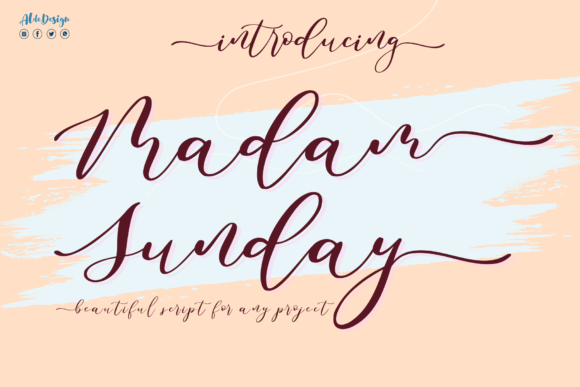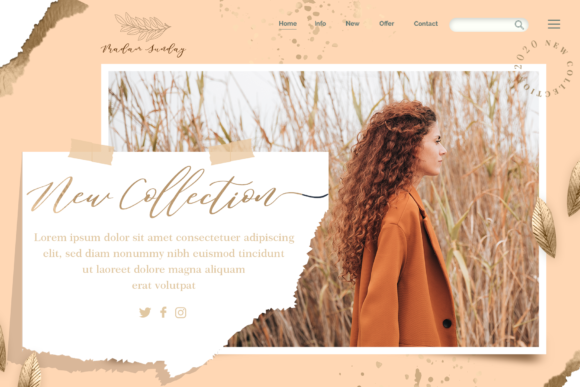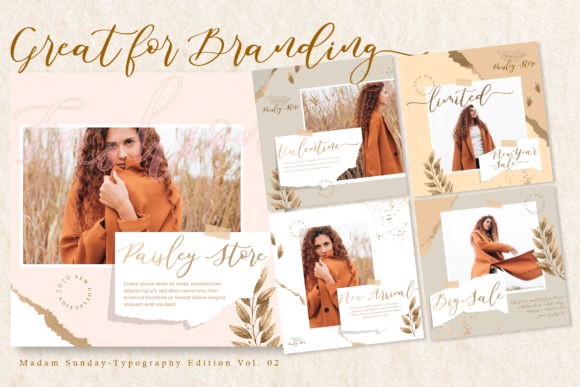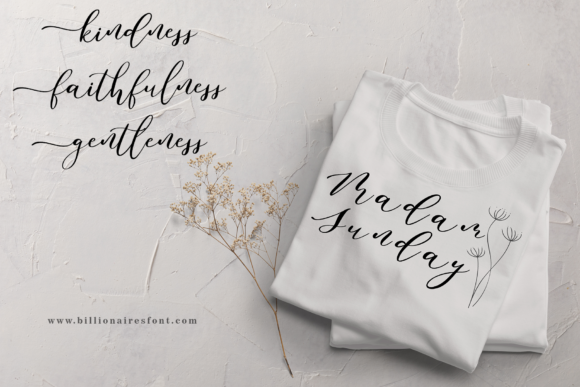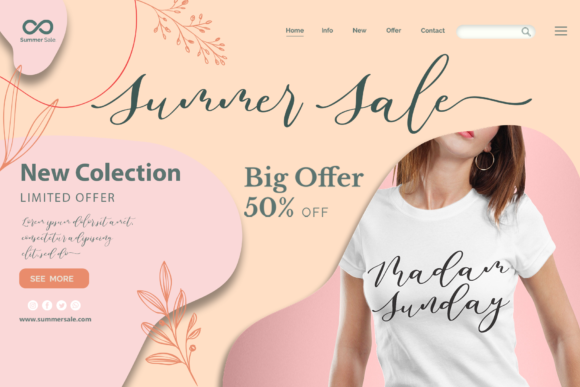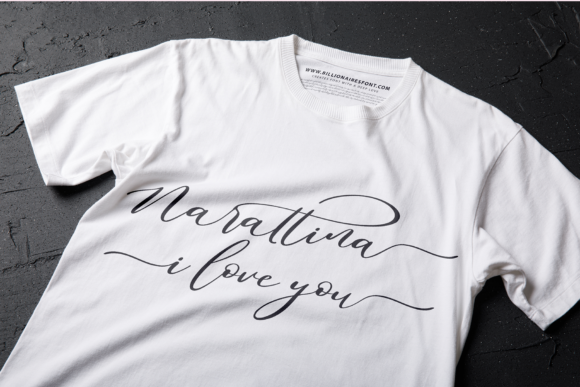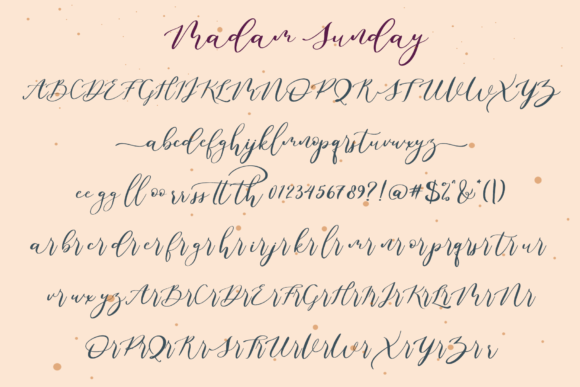
Madam Sunday Font
Madam Sunday sounds absolutely lovely! As a romantic and sweet calligraphy typeface, it brings a sense of elegance and charm to your designs. With characters that dance along the baseline, Madam Sunday adds a whimsical and playful touch to your projects. Its versatility makes it suitable for a wide range of purposes, including logos, wedding invitations, headings, t-shirts, letterhead, signage, labels, news, posters, badges, and more.
Logos designed with Madam Sunday can make a memorable impression. The romantic and sweet nature of the font adds a touch of sophistication to your brand identity. Whether you’re creating a logo for a wedding planner, a boutique, or any other business that aims to evoke a sense of elegance and charm, Madam Sunday can help you achieve a visually captivating and memorable logo.
Wedding invitations become truly enchanting with Madam Sunday. Its calligraphy-inspired style and characters that dance along the baseline bring a romantic and whimsical flair to your invitation designs. Your wedding guests will be captivated by the elegant and sweet aesthetic, setting the tone for a beautiful and memorable celebration.
Headings, whether for digital or print purposes, can be elevated with Madam Sunday. The flowing and playful characters add a unique touch to your headings, making them visually appealing and eye-catching. Whether you’re designing headings for websites, articles, or promotional materials, Madam Sunday can help you create designs that stand out.
T-shirts and apparel designs can also benefit from the romantic and sweet charm of Madam Sunday. Its calligraphy-inspired letterforms create a stylish and fashionable look, perfect for creating designs that exude elegance and a touch of whimsy. Whether you’re designing t-shirts for special events, personalized gifts, or a clothing line, Madam Sunday can add a unique and eye-catching element to your designs.
The inclusion of glyphs and swashes, thanks to its PUA encoding, provides you with easy access to additional design elements. You can effortlessly incorporate these glyphs and swashes to add decorative flourishes and embellishments, further enhancing the beauty and versatility of Madam Sunday.
In summary, Madam Sunday is a romantic and sweet calligraphy typeface with characters that dance along the baseline. Whether it’s for logos, wedding invitations, headings, t-shirts, letterhead, signage, labels, news, posters, badges, or any other design project, Madam Sunday brings an elegant and whimsical touch. Embrace the versatility of this font and utilize its PUA encoding to access a wide range of glyphs and swashes. Let Madam Sunday add a sense of romance and playfulness to your designs and create visually captivating and memorable creations.